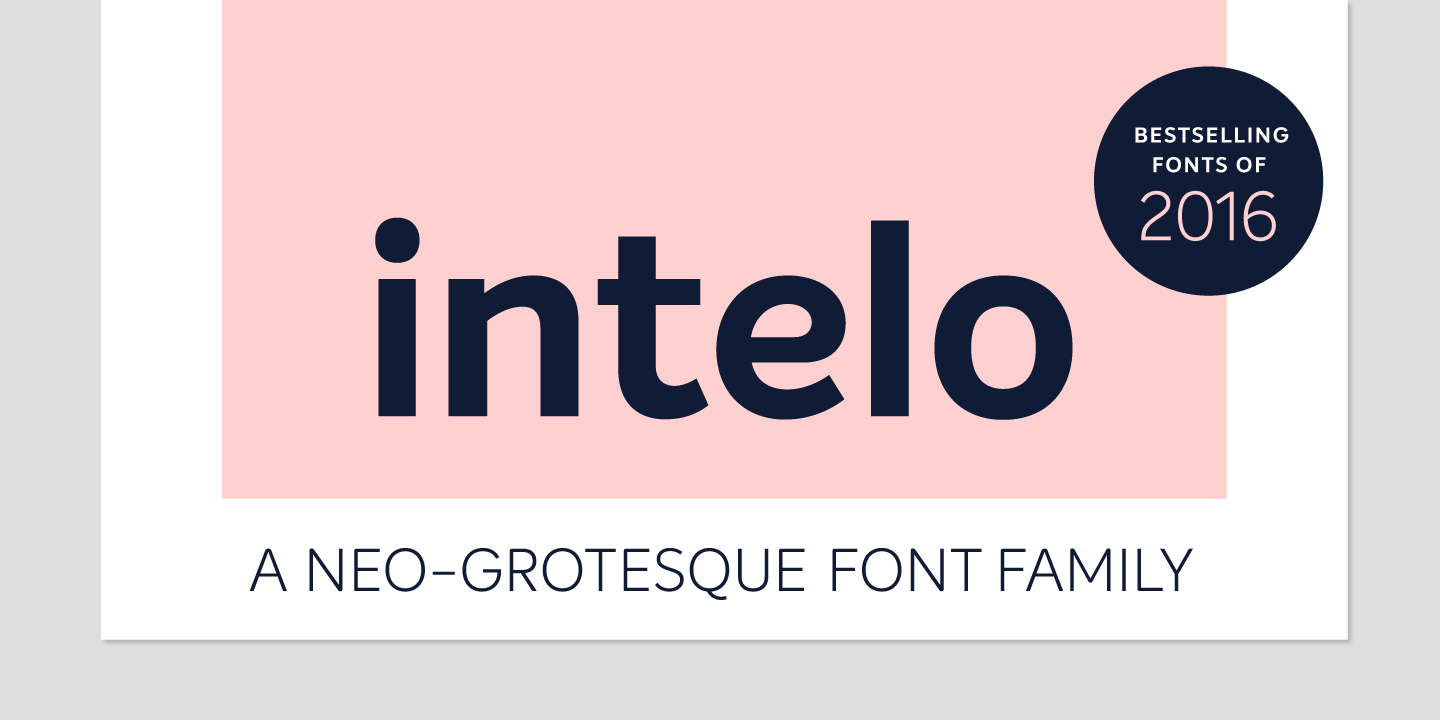
Intelo Font is perfect for intelligent tech branding, AI company communications, smart device interfaces, data analytics platforms, research institution materials, innovation hub signage, knowledge management systems, educational technology tools, scientific publication layouts, and forward-thinking corporate identity.
What makes Intelo Font so exciting is its intelligent design approach that embodies the clarity and precision required for complex information communication and technological innovation. This typeface features clean, rational letterforms with optimized readability and systematic construction that reflects modern data-driven design principles. The font's smart and analytical character communicates expertise and innovation, making it perfect for organizations seeking to establish authority in knowledge-based industries and appeal to audiences who value intelligence, precision, and the cutting-edge potential of information technology.
Intelo Font family includes Thin, Light, Regular, Medium, Bold, and Black weights, along with corresponding italic styles that maintain systematic consistency. The family also features special character sets including technical symbols, data visualization elements, and analytical punctuation marks that enhance the font's effectiveness for information-rich applications and technology-focused communications.
Intelo Font supports comprehensive character sets including Latin alphabets, numbers, punctuation marks, and special technical symbols. The font's systematically optimized spacing ensures maximum clarity for complex information while maintaining excellent readability across all digital and print applications. Its OpenType features include contextual alternates, technical ligatures, and analytical typography options that expand creative possibilities for information design projects.
Professional designers choose Intelo Font for projects requiring authentic intelligent appeal and technological sophistication aesthetics. The font excels in applications where clarity and analytical precision are essential, offering the perfect solution for brands seeking to communicate innovation, expertise, and connection to cutting-edge technology. Its intelligent character makes it ideal for tech companies, research institutions, and knowledge-based organizations.